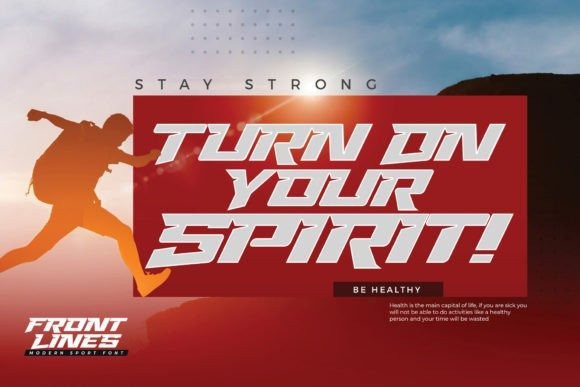
Front Lines Font
Front Lines Font is an All Caps Sporty Font. This is a Textured Natural Style and classy style with a clear style and dramatic movement.
Front Lines Font is great for your next creative projects such as logos, printed quotes, invitations, cards, product packaging, headers, Logotype, Letterhead, and Poster, Design this font is great for your creative projects such as watermark on photography, and perfect for logos & branding, invitation, advertisements, product designs, stationery, wedding designs, label, product packaging, special events or anything that need handwriting taste.